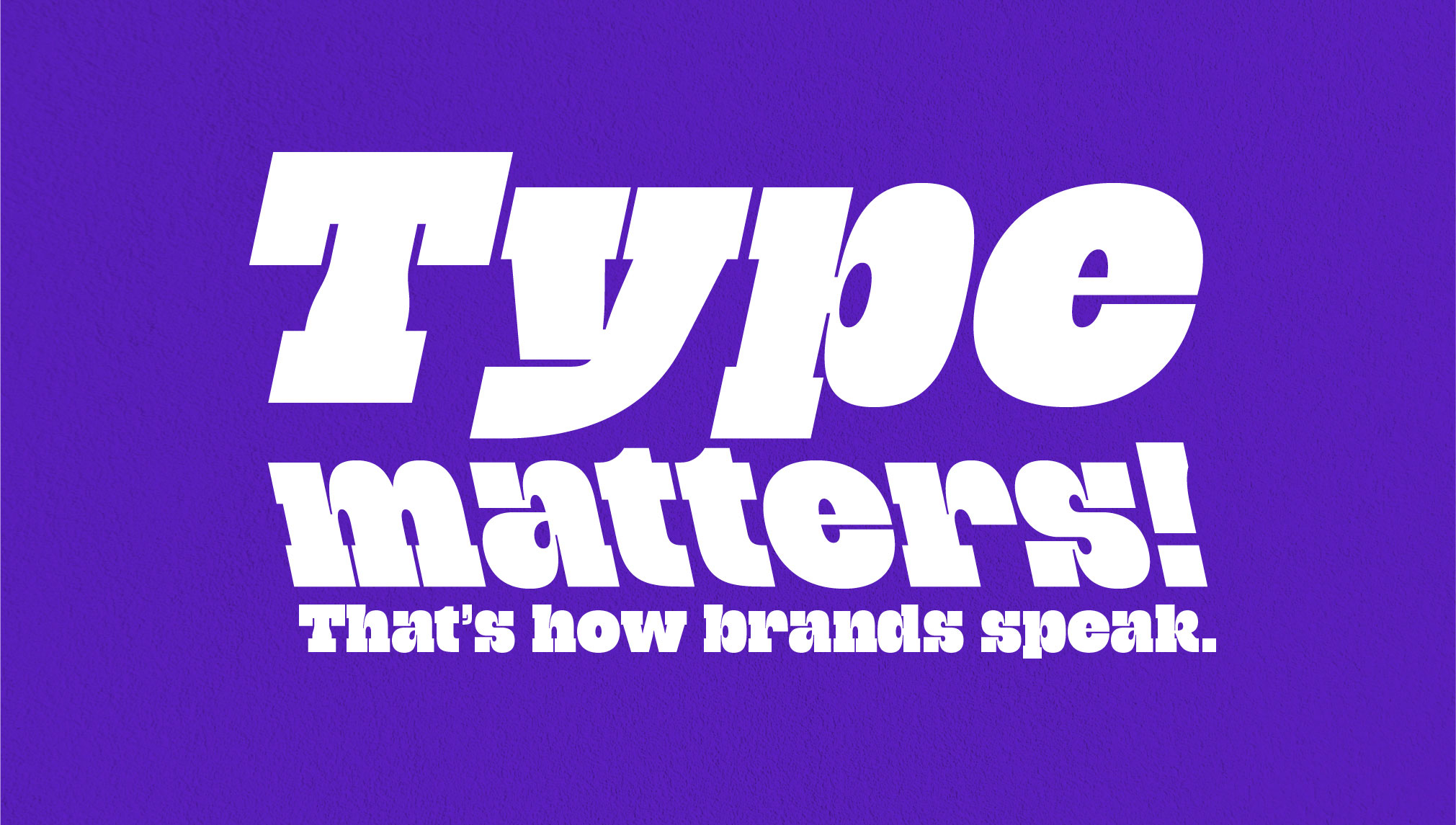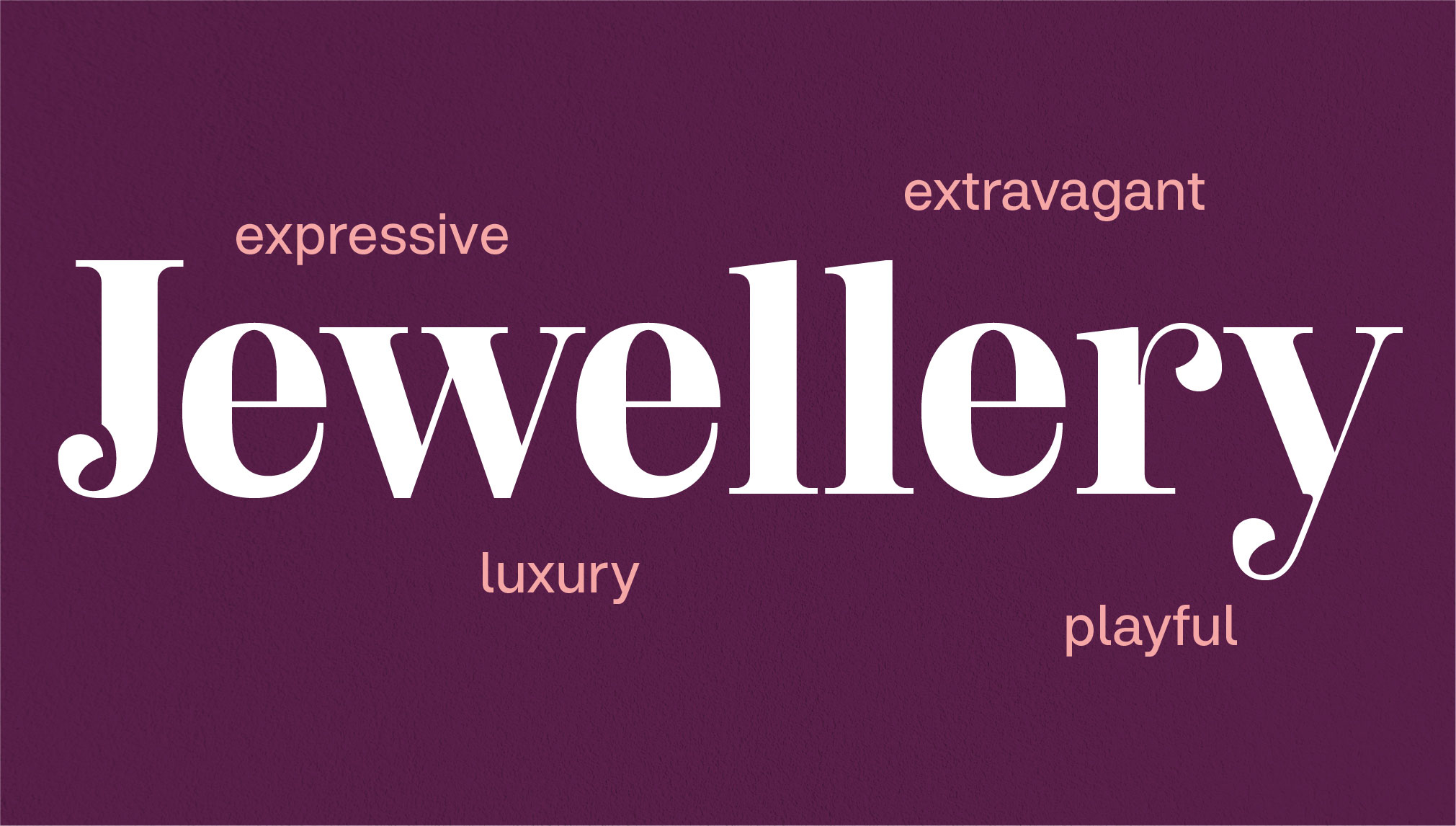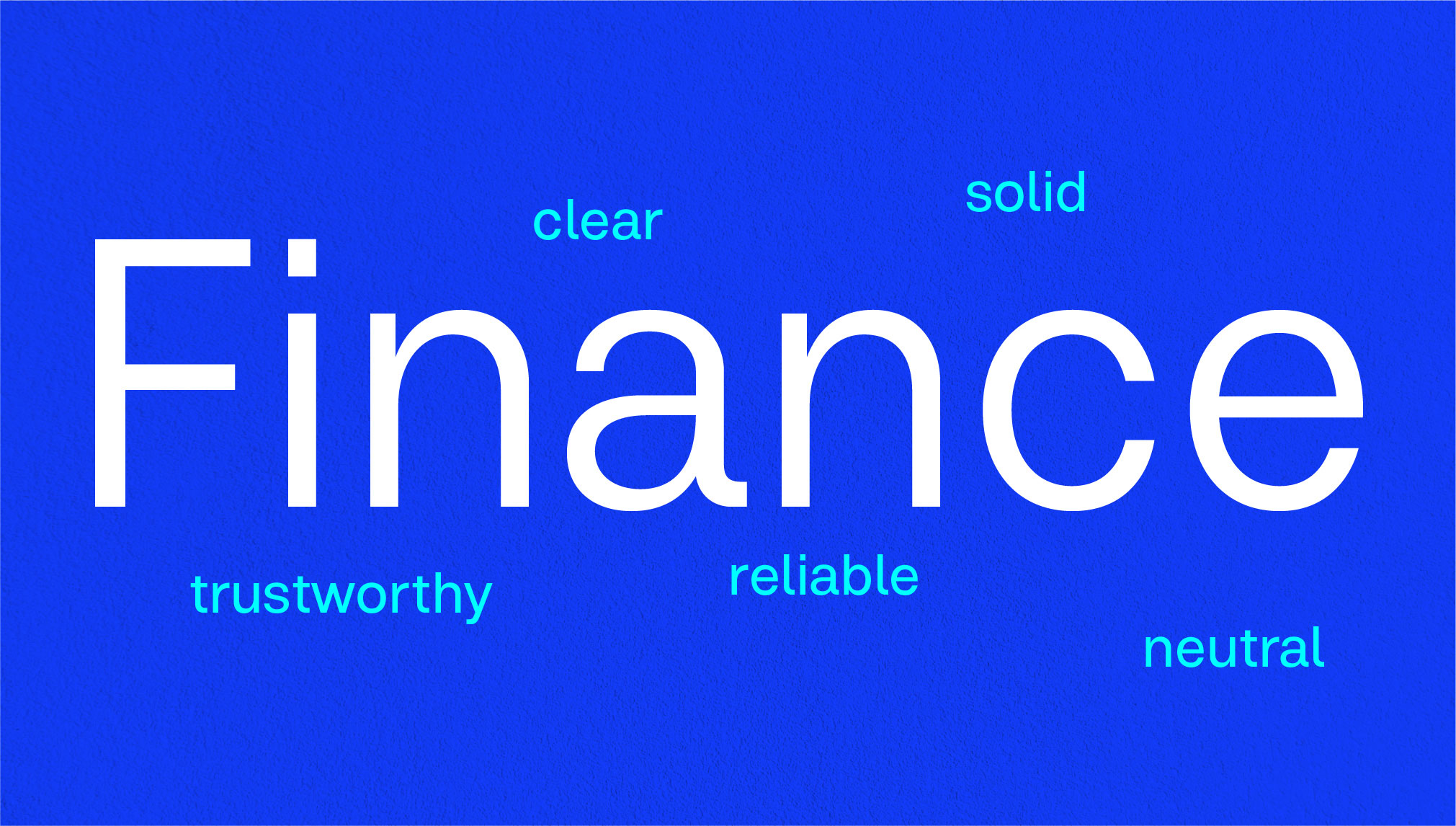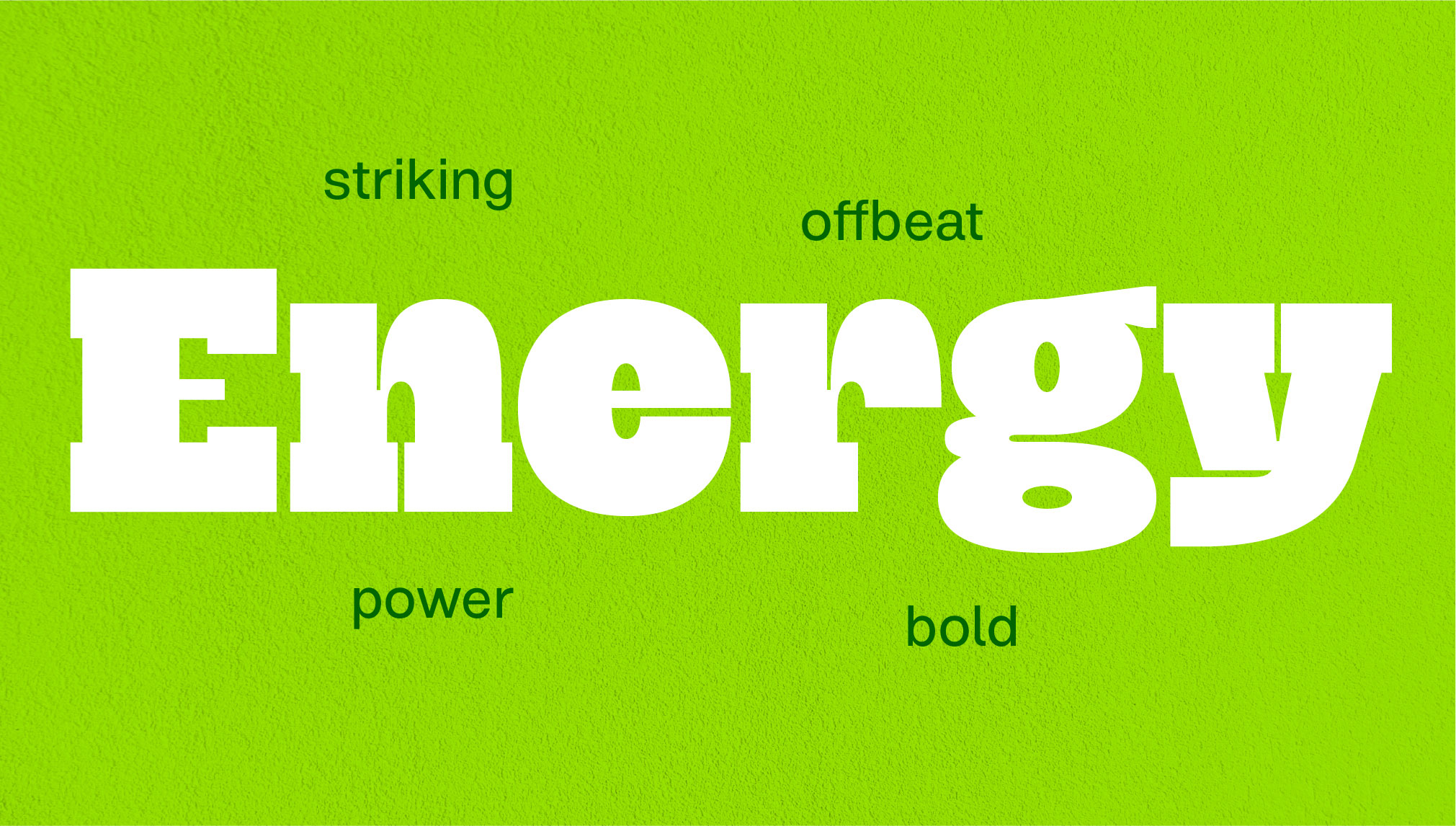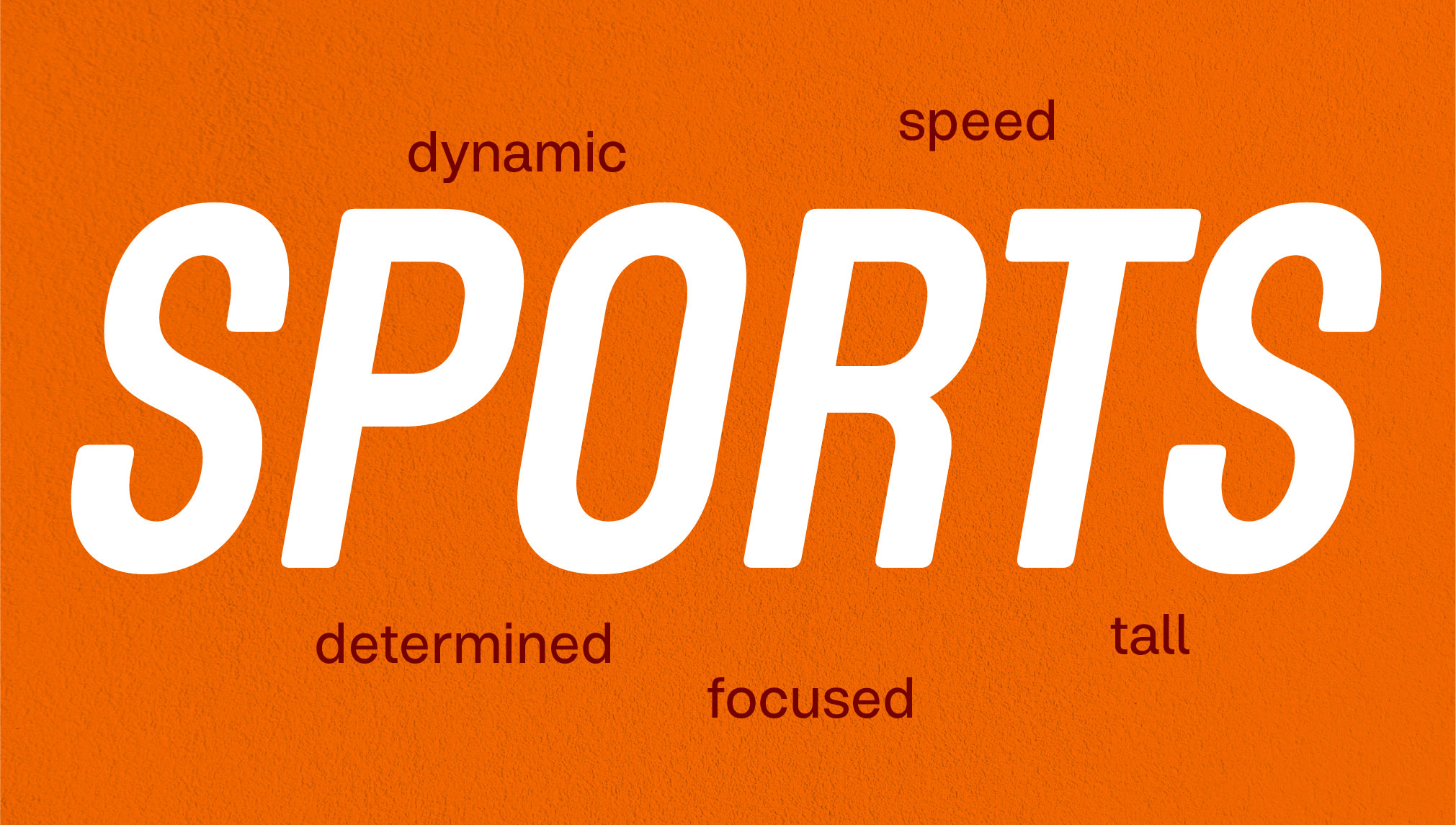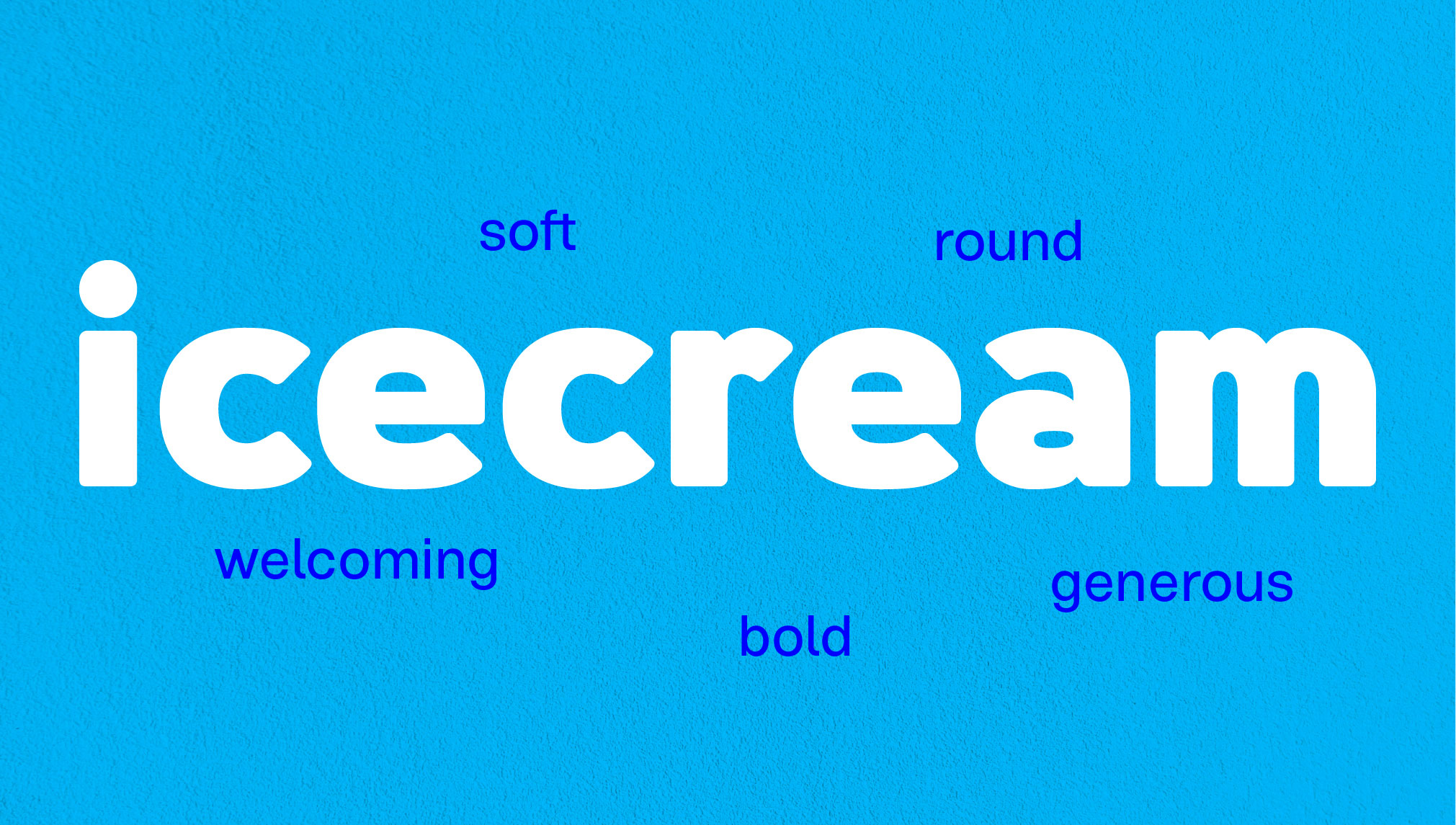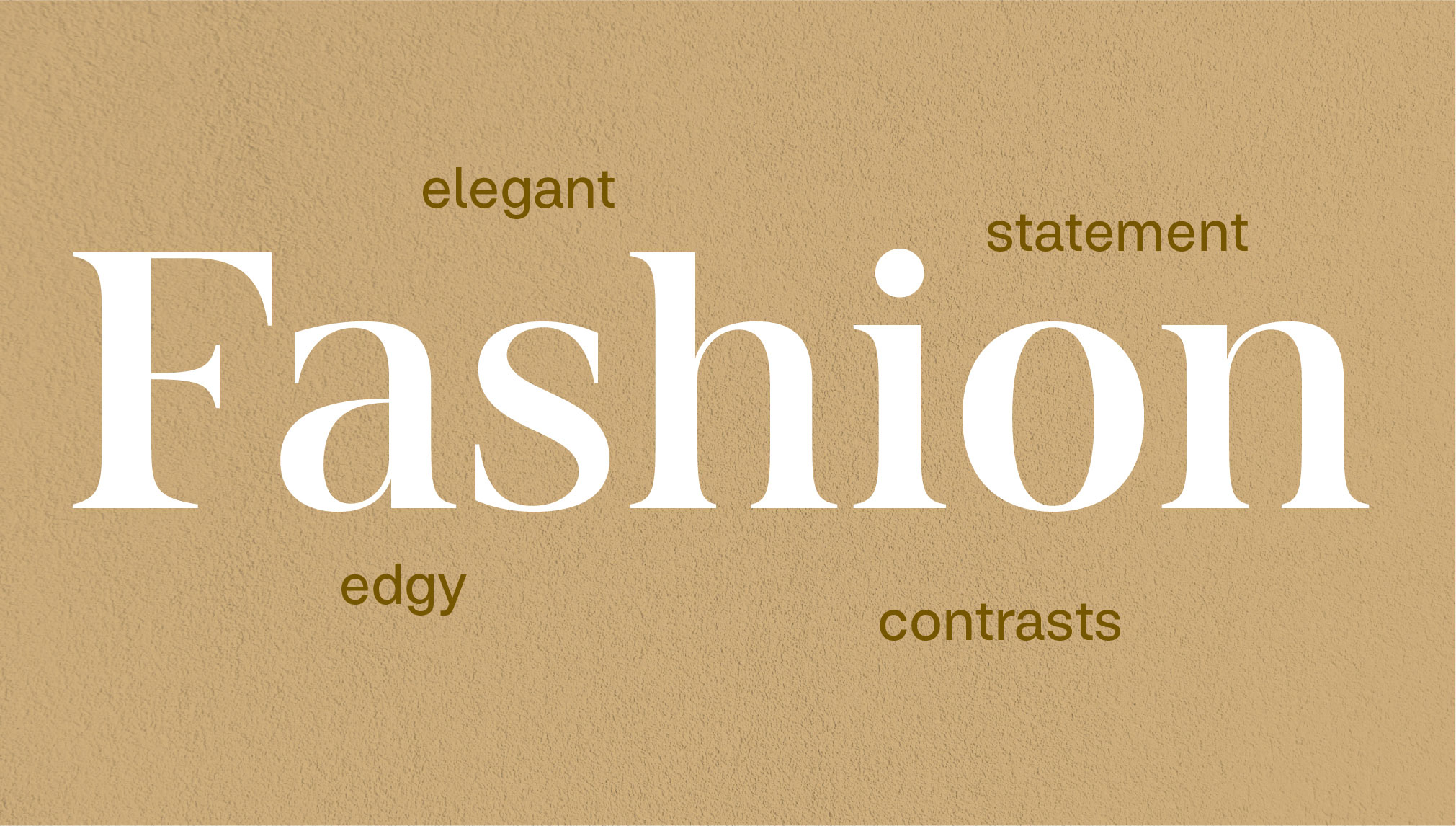
Why typography is so vital to good branding
Typography shapes perception, communicates values, and gives every brand its own voice.
Ask someone what makes a strong brand and you'll probably hear the same answers: a memorable logo, a distinctive colour palette, maybe a clever slogan. Typography rarely makes that list. And yet, it's one of the most powerful branding tools a company has.
A typeface appears almost everywhere a brand exists – on its website, in presentations, social media posts, advertisements, packaging, emails, even invoices. Few design elements are used as consistently or as frequently. That's exactly why typography has such a profound influence on how a brand is perceived. Long before people start reading, they start looking. The shapes of letters already communicate something. They can feel confident or approachable, modern or traditional, technical or human. Typography doesn't just carry words – it shapes how those words are received.
More than just letters
Branding isn't only about what you say. It's about how people experience what you say. Typography is one of the few visual elements that accompanies almost every interaction with a brand. Campaigns change. Images evolve. Even logos are occasionally redesigned. But the typeface often stays the same for years, quietly becoming part of the brand's identity.
Choosing a typeface is never just a design decision. It's a branding decision
That's why choosing a typeface is never just a design decision. It's a branding decision.
A consistent typographic system creates familiarity. Over time, people begin to recognise a brand not only by its logo or colours but also by the way it looks on the page or on the screen.
Every typeface has a personality
Typography speaks before the words do. Rounded letterforms often feel warm, approachable and human. Geometric sans-serifs can communicate innovation and clarity. Strong, angular typefaces tend to project confidence, stability and precision. Elegant serif fonts often evoke heritage, craftsmanship or luxury.
None of these associations are accidental. They're rooted in the way we instinctively interpret visual forms. That's why the "best" typeface doesn't exist. The right typeface is simply the one that reflects the personality of the brand. A healthcare company shouldn't look like a heavy machinery manufacturer. A luxury fashion label shouldn't feel like accounting software. Typography helps establish those expectations before a single sentence has been read.
Type gives language a voice
Think of typography as the tone of voice in a conversation.
The exact same sentence can sound warm, confident, playful or authoritative depending on who's saying it and how it's delivered. Typography does the same thing visually. Because type is the visual expression of language.
A clean, contemporary typeface can make a technology company feel innovative and trustworthy. A handwritten font might make the same company feel less reliable – but could be perfect for an artisan bakery or a children's brand. The words haven't changed. Only the way they are presented has. That's why typography doesn't simply support a message. It becomes part of the message itself.
Consistency creates recognition
Strong brands aren't built through one memorable campaign. They're built through repetition. Every interaction adds another layer to the overall perception of a company. When typography remains consistent across websites, presentations, packaging, advertising and social media, it creates a sense of familiarity. And familiarity builds trust.
People may not consciously notice that a brand always uses the same typeface. But they notice when something feels inconsistent. Suddenly the experience feels fragmented, and the brand loses part of its identity. Good typography isn't loud. It works quietly in the background – connecting every touchpoint into one coherent brand experience.
Final thoughts
Typography is often treated as a finishing touch. In reality, it's one of the foundations of a strong visual identity. The right typeface communicates personality, reinforces values and gives every piece of communication the same recognisable voice.
It helps people understand not only what a brand says, but who that brand is. Because brands don't just speak through words. They speak through type.